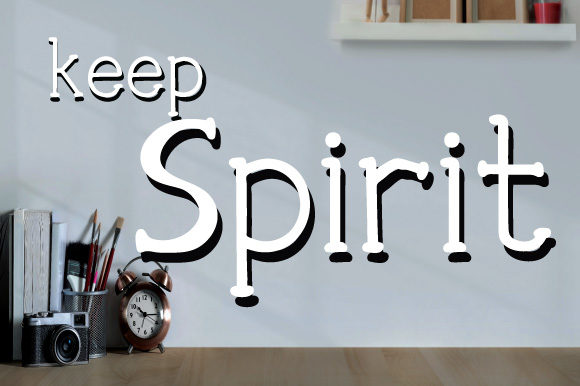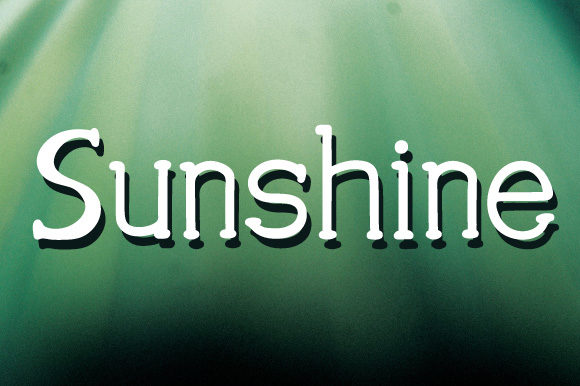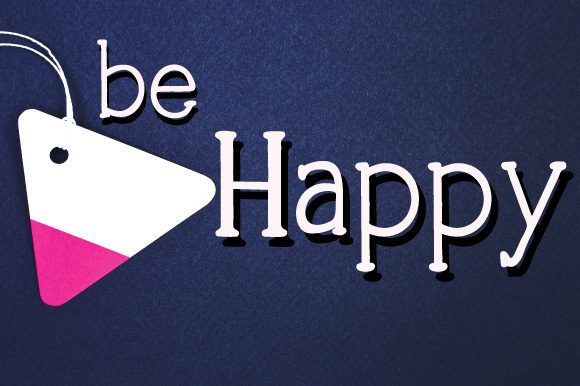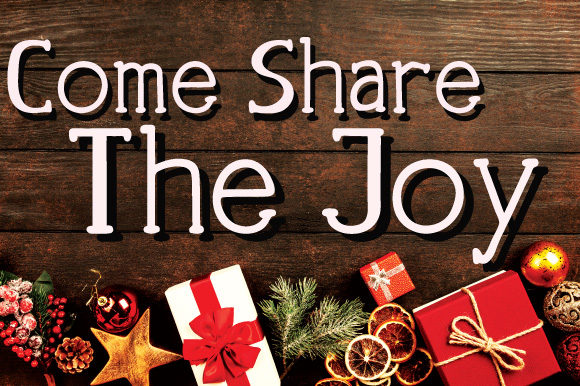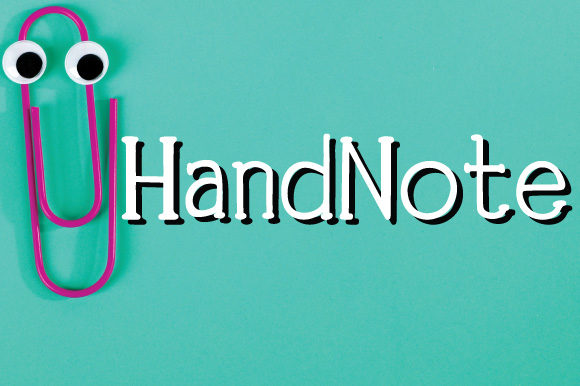
Discover the Charm of Handnote Font: Elevate Your Designs with a Unique Serif Style
In the world of typography, fonts play a crucial role in bringing designs to life. Among the numerous fonts available, Handnote stands out as a distinctive and simple serif font that has captured the attention of designers and crafters alike. Its natural and unique style makes it incredibly versatile, suitable for a wide range of designs. Whether you’re working on a branding project, crafting a poster, or creating engaging social media content, Handnote Font can add a touch of elegance and sophistication to your work.
The Uniqueness of Handnote Font
Handnote Font boasts a unique and simple serif design that sets it apart from more traditional fonts. Its serifs add a touch of refinement, making it perfect for designs that require a bit of sophistication. The font’s simplicity ensures that it remains legible across various sizes and resolutions, making it an excellent choice for both digital and print projects.
The true strength of Handnote Font lies in its versatility. Its natural and unique style makes it incredibly fitting for a large pool of designs. From modern and minimalist to vintage and rustic, Handnote can adapt to various design aesthetics. Whether you’re designing a logo, a brochure, or a website, this font can help you create a visually appealing and cohesive look.
Here are some design areas where Handnote Font can shine:
- Branding and Logos: Use Handnote Font to create a memorable and distinctive brand identity. Its unique serifs can help your logo stand out and make a lasting impression on your audience.
- Posters and Flyers: Add a touch of elegance to your posters and flyers with Handnote Font. Its simplicity and legibility make it perfect for headlines and body text.
- Social Media Graphics: Elevate your social media presence with engaging graphics featuring Handnote Font. Its versatility ensures that it will look great on various social media platforms.
- Packaging Design: Use Handnote Font to create eye-catching packaging designs that reflect your brand’s personality. Its unique style can help your product stand out on store shelves.
Why Choose Handnote Font?
With so many fonts available, why should you choose Handnote Font for your designs? Here are a few compelling reasons:
- Unique Style: Handnote Font offers a distinctive and simple serif style that can add a touch of sophistication to your designs.
- Versatility: Its natural and unique style makes it suitable for a wide range of designs, from modern to vintage.
- Legibility: Handnote Font remains legible across various sizes and resolutions, making it perfect for both digital and print projects.
- Ease of Use: The font is easy to read and works well in a variety of design contexts.
Tips for Using Handnote Font Effectively
To get the most out of Handnote Font, here are some tips to keep in mind:
- Pair it with Other Fonts: Experiment with pairing Handnote Font with other fonts to create a unique and visually appealing typography combination.
- Adjust Font Sizes: Play with different font sizes to create visual hierarchy and emphasize important information.
- Use it for Headlines and Body Text: Handnote Font works well for both headlines and body text, making it a versatile choice for various design projects.
In conclusion, Handnote Font is a unique and simple serif font that can elevate your designs with its natural and unique style. Its versatility, legibility, and ease of use make it an excellent choice for designers and crafters looking to add a touch of sophistication to their work. So, let your imagination run wild and explore the endless possibilities with Handnote Font!